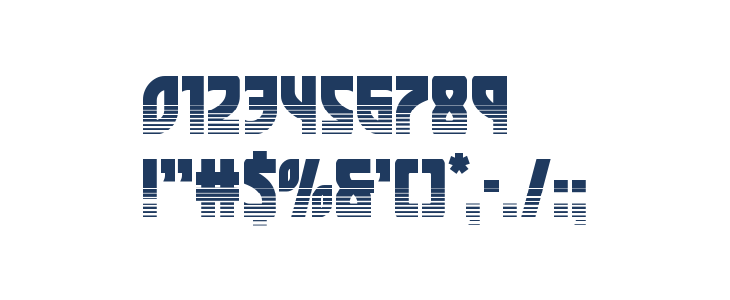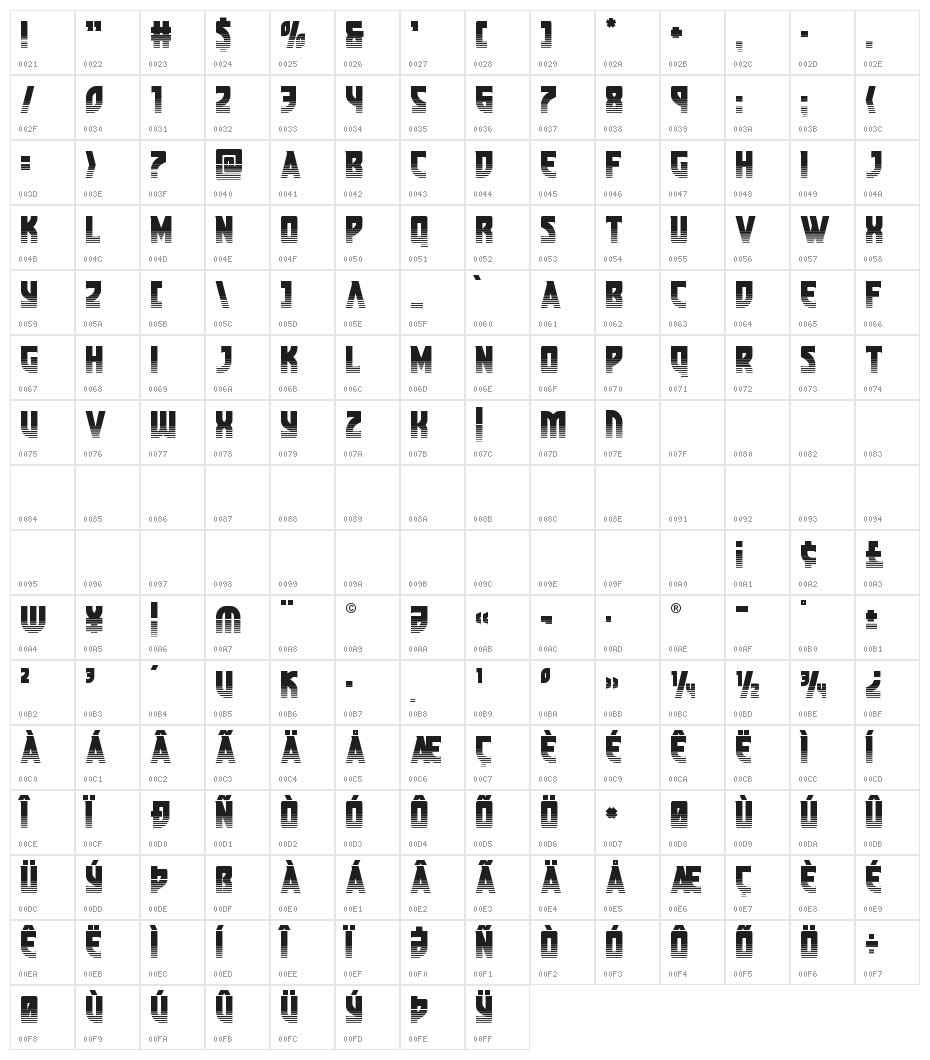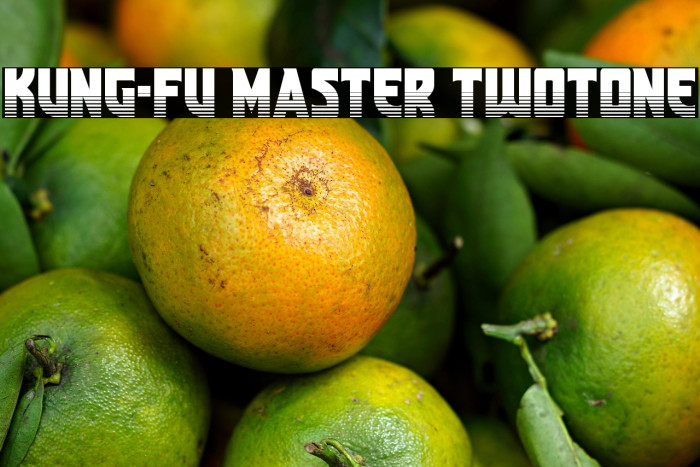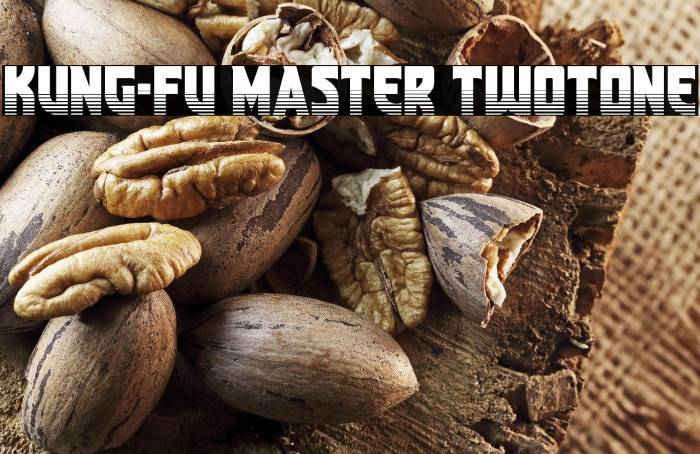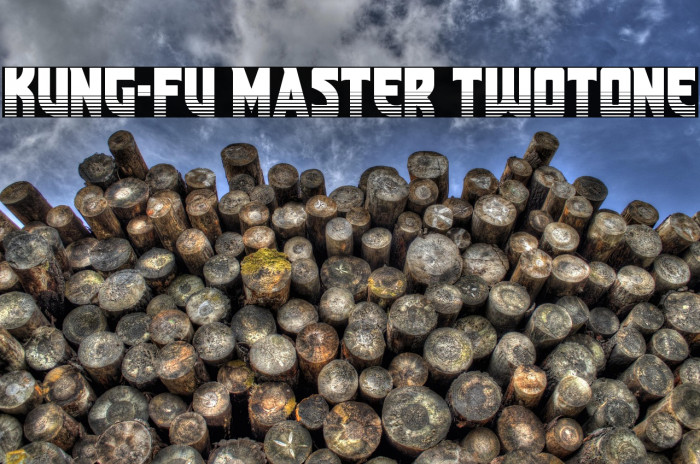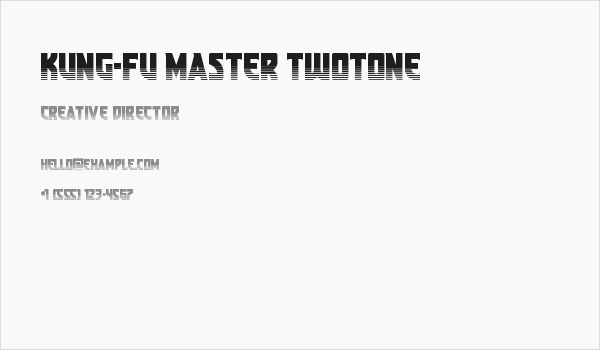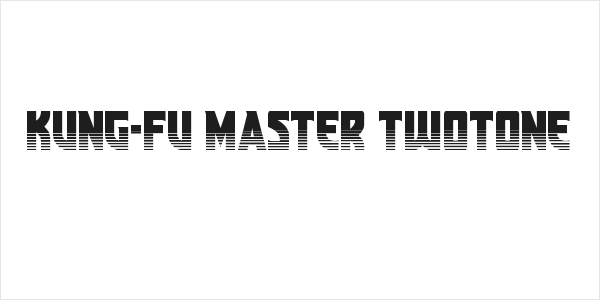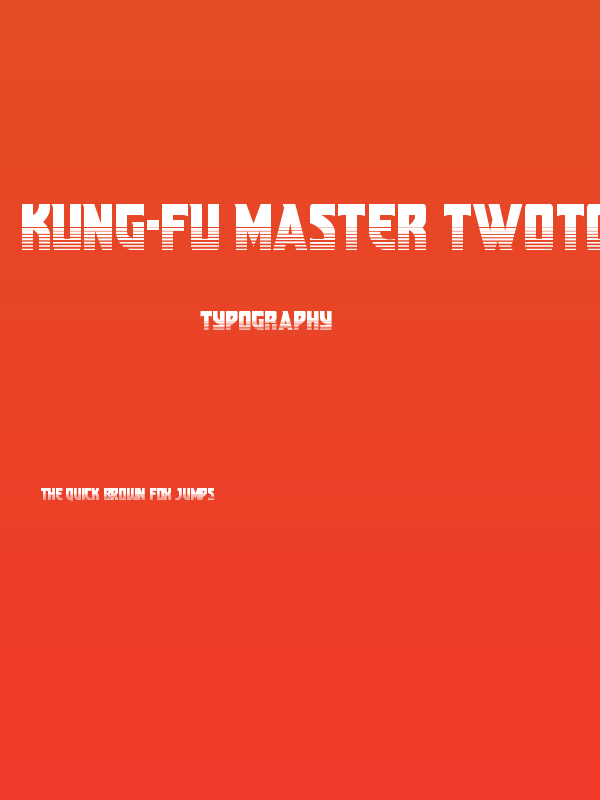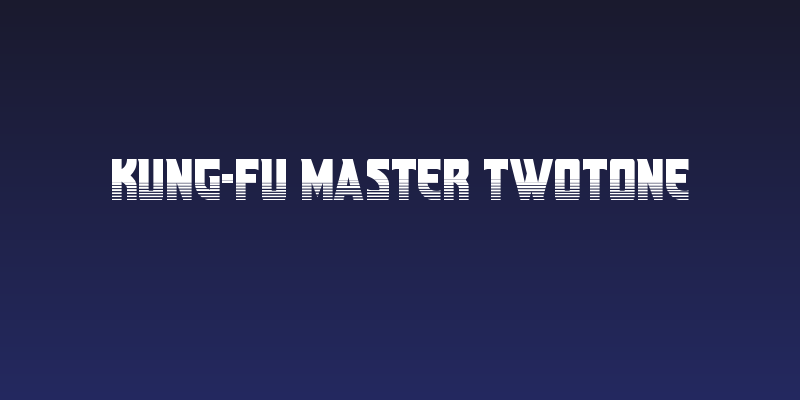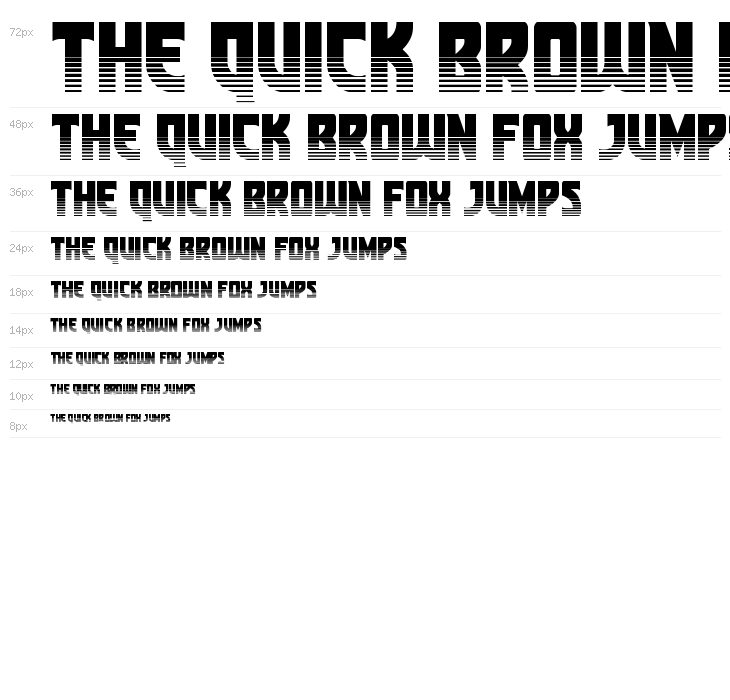
Kung-Fu Master Twotone Font
Kung-Fu Master Twotone Description
This font features a bold, dynamic design with a unique two-tone effect. The characters are constructed with solid black upper halves and striped lower halves, creating a striking visual contrast. The geometric shapes and sharp angles give it a modern and edgy appearance. This style is reminiscent of retro arcade games and martial arts themes, making it perfect for projects that require a bold and adventurous look. The uppercase letters are particularly prominent, with a strong presence that commands attention. The numbers and special characters maintain the same stylistic elements, ensuring consistency across all text elements.
| Overall Style | Retro, Modern |
| Proposed Projects | Ideal for video game titles, movie posters, martial arts event promotions, and retro-themed designs. |